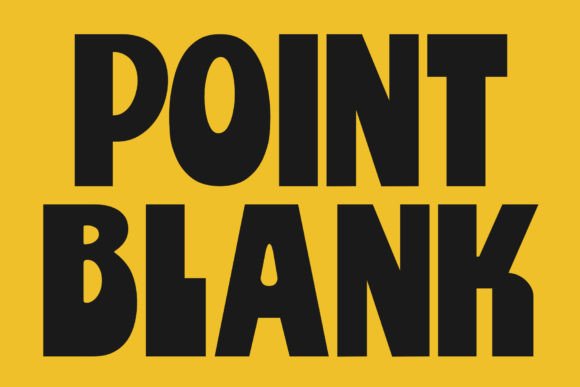
If you're looking for a font that will make your designs stand out, look no further than Point Blank Font. Created by the design experts at HipFonts, this retro-inspired display font is perfect for adding a touch of groovy and funky style to your projects.
With its big, bold, and chubby letterforms, Point Blank is a font that demands attention. Whether you're creating a poster, a logo, or a product label, this typeface will make sure your message is heard loud and clear.
Point Blank Font is perfect for anyone who wants to add a touch of vintage charm to their designs. Its retro-inspired look takes us back to the bold and exciting style of the 1960s and 1970s, making it perfect for projects that need a little extra personality.
And when it comes to versatility, Point Blank is in a league of its own. With its eye-catching design and bold letterforms, it's perfect for everything from advertising to branding. So if you're looking for a font that will help your projects stand out from the crowd, Point Blank is the perfect choice.
In conclusion, if you want to add a touch of retro charm to your designs, you need Point Blank Font. With its big, bold, and chubby letterforms, this typeface is perfect for making a statement and adding a touch of personality to your projects. So why wait? Download Point Blank today and start creating designs that are sure to turn heads.